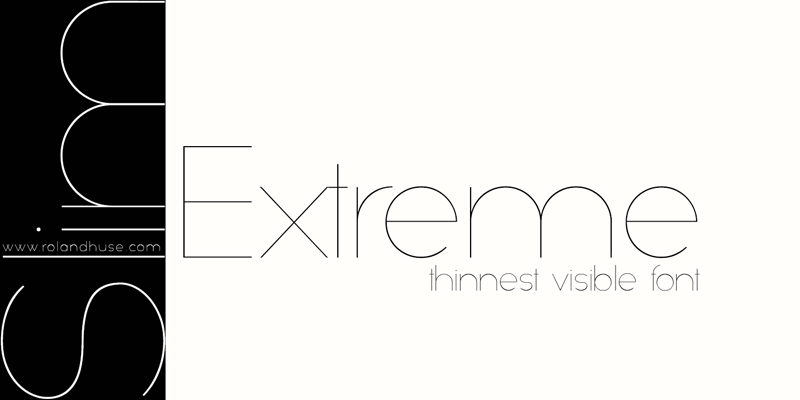
Preview and download Slim Extreme Font. Created by Runes & Fonts in Basic Sans serif styles with Free for personal use license.
SLIM EXTREME is my concept for the "thinnest weight as possible (yet readable)" geometric font. This font is free for PERSONAL use only. For any commercial use (anything you make money from), you must send a paypal donation to myhandwritings@gmail.com. Please contact me via myhandwritings@gmail.com also about the following: -This family does not contain all the language extensions, but I am willing to create any extensions on request - Discovering kerning problems while using - Or any other question or feedback. You MAY NOT sell my fonts or claim them as your own. You MAY NOT edit or rename my fonts. You MAY redistribute my fonts if: 1. You credit me (Roland Huse). 2. Keep the READ ME file intact within the zip folder. 3. Provide a link back to my website (www.rolandhuse.com). Thank you & I hope you like this font, Roland http://www.rolandhuse.com https://www.facebook.com/pages/Runes-And-Fonts/123221817784772 |